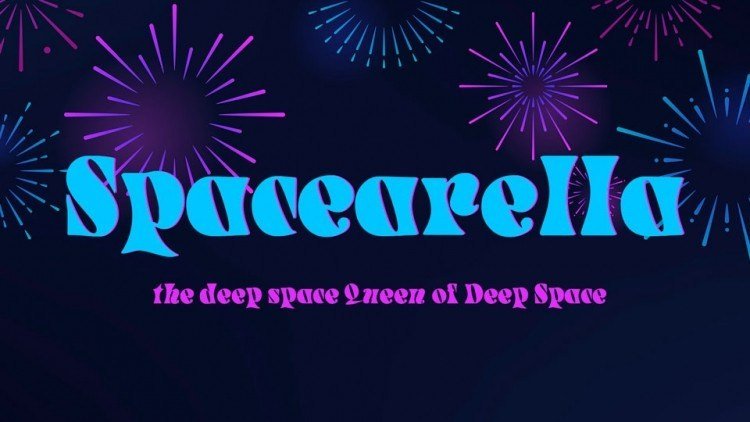
Spacearella Display Font
Spacearella is a funky retro typeface with a groovy fat look.
It contains upper and lowercase letters, numbers and symbols.
Spacearella font is perfect for posters, headlines, logos, banners and other artworks.